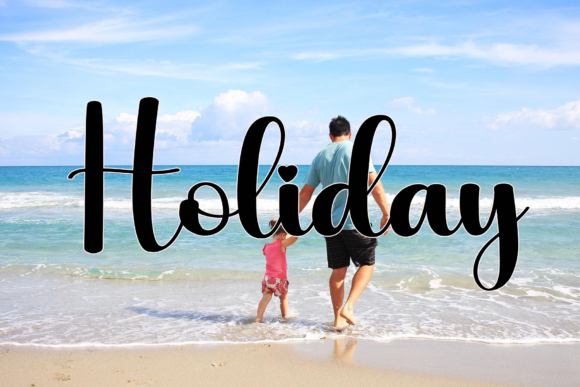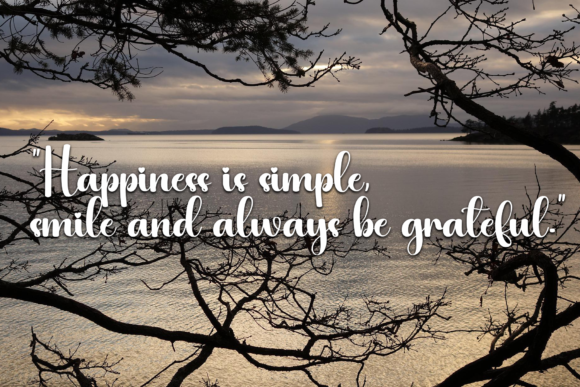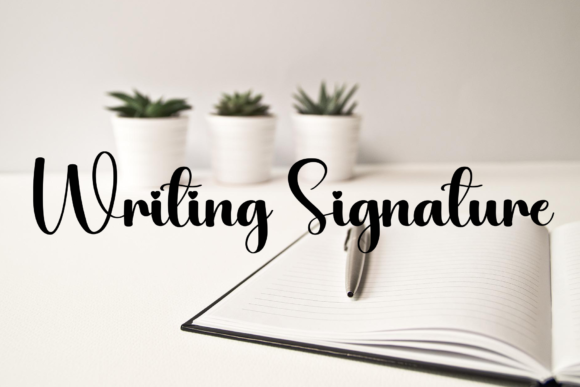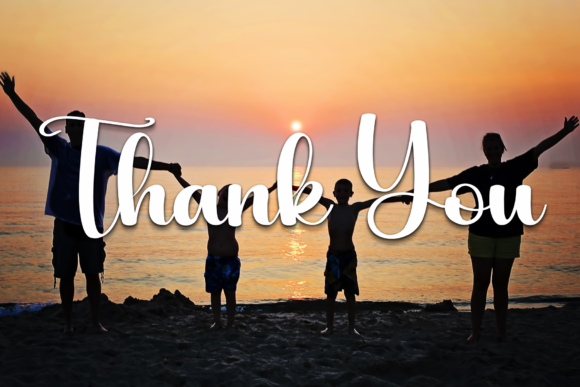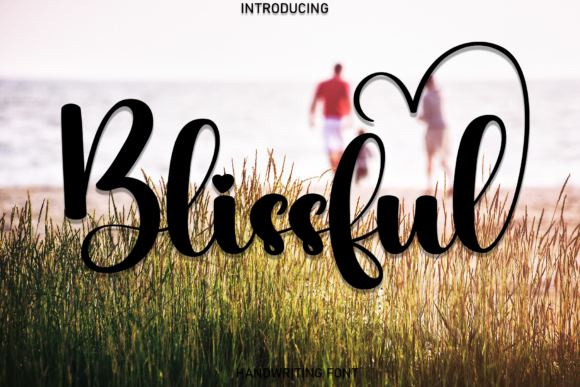
Introducing Blissful Font: Elevate Your Designs with Whimsy and Elegance
Are you on the hunt for a font that adds a touch of luxury and sweetness to your design projects? Look no further than Blissful Font, a stunning script font that is sure to captivate your audience. With its whimsical, flowing, and thin characteristics, Blissful Font is the perfect choice for designers and crafters seeking to infuse their work with a dash of elegance and sophistication.
The Charm of Blissful Font
Blissful Font is a sweet and charming script font that boasts characters that dance along the baseline, creating a sense of movement and fluidity. This unique feature sets it apart from other fonts, making it an excellent choice for designers who want to add a touch of whimsy to their work. Whether you’re creating a logo, branding materials, or social media graphics, Blissful Font is sure to make your designs stand out.
Key Features of Blissful Font
• Whimsical and flowing design: Blissful Font features a beautiful, cursive design that is perfect for creating elegant and sophisticated text.
• Thin script font: The font’s thin lines and delicate curves make it ideal for use in designs where a touch of refinement is desired.
• Characters that dance along the baseline: This unique feature adds a sense of movement and energy to your designs, making them more engaging and captivating.
• Luxury spark: With Blissful Font, you can add a touch of luxury to your designs, making them perfect for high-end branding, packaging, and marketing materials.
Blissful Font is an excellent choice for designers and crafters who want to create stunning visual content. Whether you’re working on a personal project or a client’s design brief, this font is sure to impress. Here are some ways you can use Blissful Font:
• Logo design: Create a stunning logo that showcases your brand’s personality and style with Blissful Font.
• Social media graphics: Use Blissful Font to create eye-catching social media graphics that will help your brand stand out.
• Branding and packaging: Add a touch of luxury to your branding and packaging materials with Blissful Font.
• Stationery and invitations: Create beautiful stationery and invitations that showcase your personal style or brand’s identity.
Tips for Using Blissful Font
To get the most out of Blissful Font, here are some tips to keep in mind:
• Use it sparingly: Blissful Font is a statement font, so use it sparingly to avoid overwhelming your design.
• Pair it with a neutral font: Pair Blissful Font with a neutral font to create a beautiful contrast and add visual interest to your design.
• Experiment with colors: Try out different colors and textures to see how they interact with Blissful Font and enhance your design.